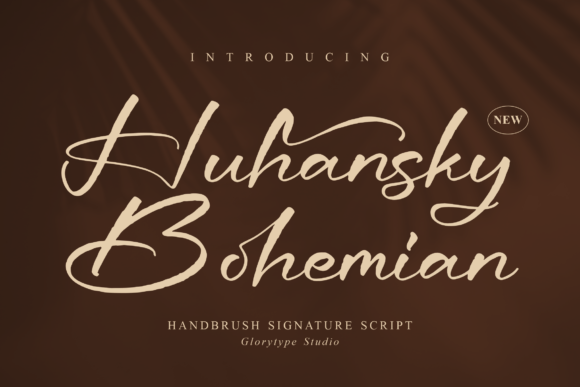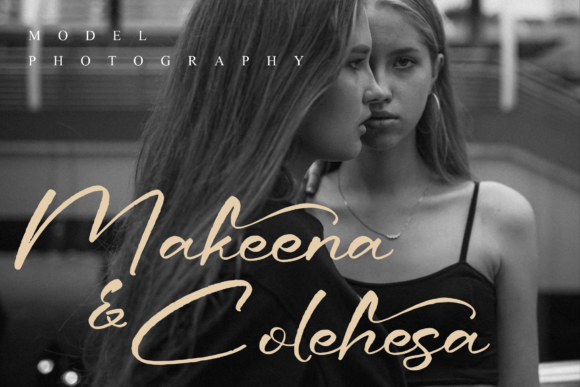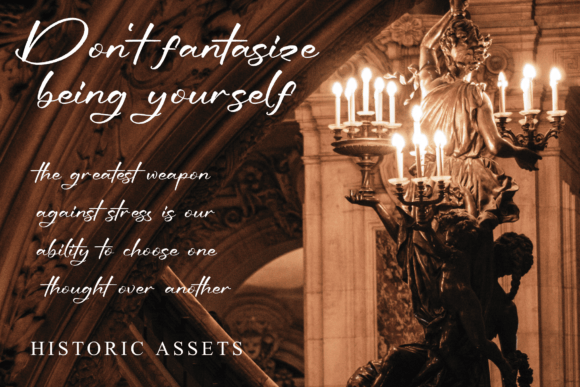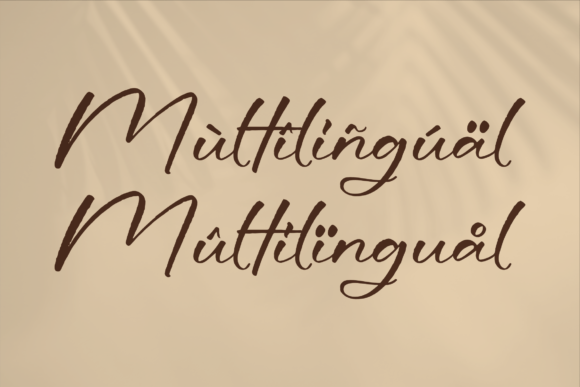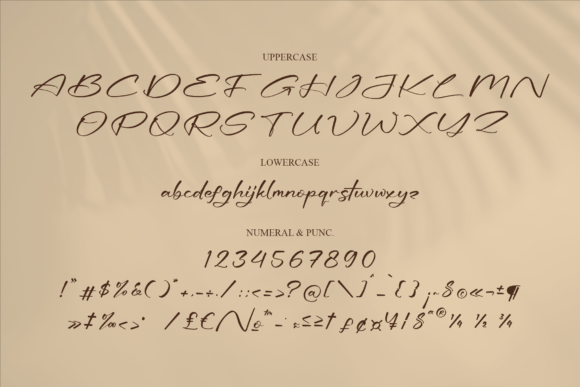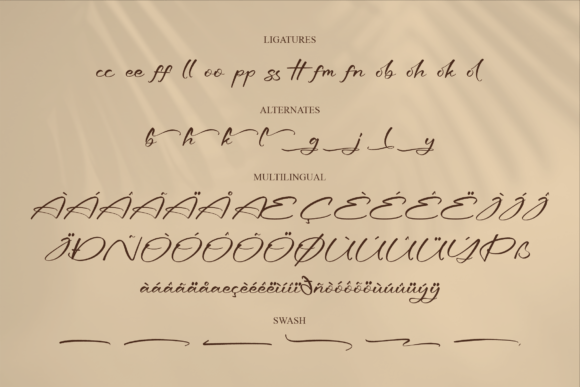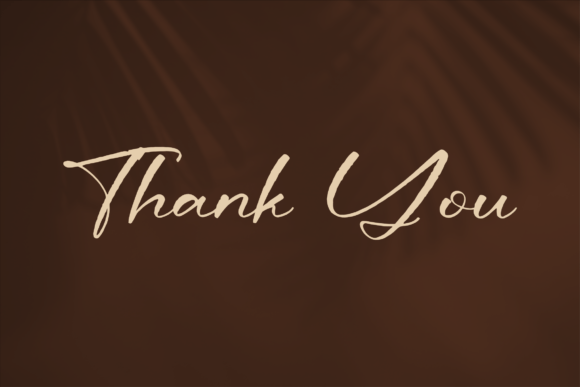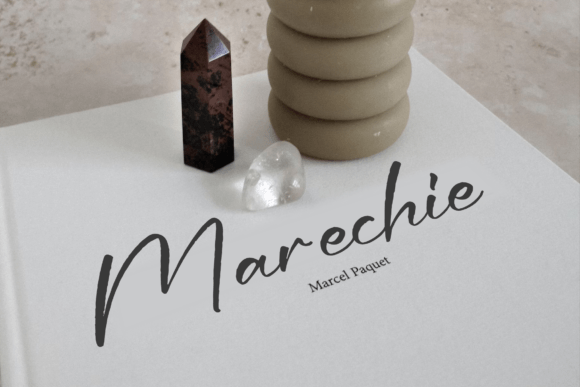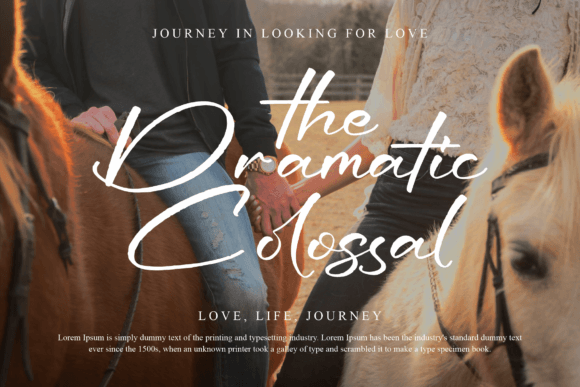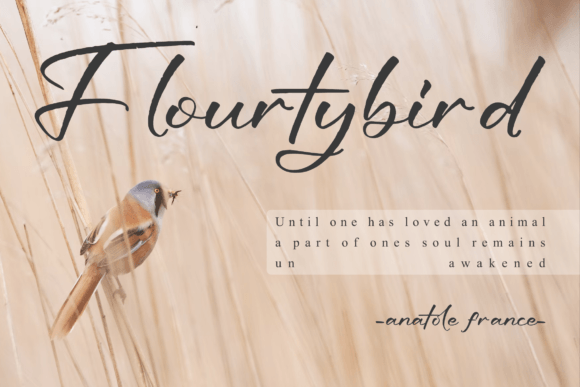
Huhansky Bohemian Font
What Is Huhansky Bohemian Font?
Huhansky Bohemian is an enchanting handwritten script font designed to bring a romantic and personal touch to your creative projects. Each letter flows gracefully, with smooth curves and charming details that feel warm and inviting. Because of its versatile design, this font is perfect for any project that needs a beautiful handwritten look.
You will see how effortlessly Huhansky Bohemian transforms simple ideas into refined, eye-catching designs.
Huhansky Bohemian is a highly adaptable font you can use across many design applications. For example, it’s ideal for greeting cards. The romantic script adds a heartfelt touch that makes every message feel special.
In addition, it works wonderfully for headlines and titles. Whether you’re designing a magazine cover or a blog banner, this font brings an elegant, artistic feel.
You can also use it for wedding invitations and stationery. The delicate handwritten style creates a timeless, sophisticated impression your guests will admire.
When you create social media graphics or inspirational quotes, Huhansky Bohemian captures attention and gives your posts a unique, handcrafted vibe.
Moreover, it’s great for product packaging, logos, business cards, and personal projects. Even minimalist layouts look more inviting with this script.
Why Should You Choose Huhansky Bohemian Font?
There are many reasons to consider Huhansky Bohemian for your next project. First, it’s easy to read, even with its flowing letterforms. Whether you use it for large headlines or smaller text, every letter stays clear and balanced.
Also, this font pairs beautifully with clean serif or sans-serif fonts. This helps you create cohesive, professional layouts without extra effort.
Because it’s fully PUA encoded, you can access all glyphs and swashes without any additional software. Customizing your text becomes smooth and fast.
Designers appreciate that it looks polished out of the box, saving time while delivering beautiful results.
Huhansky Bohemian brings romance and personality to every project. For example, when you want your designs to feel warm and memorable, this font makes it simple.
Even simple layouts look richer with the script’s elegant, handwritten style. Whether you create branding, wedding stationery, or packaging, your work will stand out effortlessly.
Using a premium handwritten font also shows your attention to detail and commitment to quality. This builds trust with your audience and makes your designs more impactful.
Huhansky Bohemian Font is more than just a typeface—it’s a creative tool that helps you communicate with clarity and elegance. From greeting cards and invitations to logos and social media posts, this font adapts easily and leaves a lasting impression.